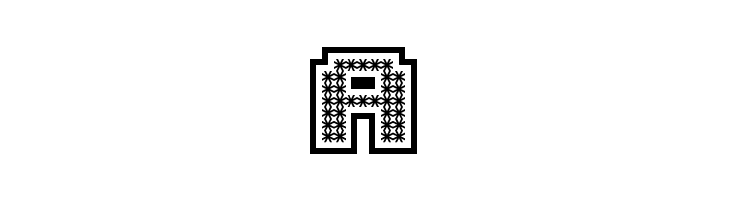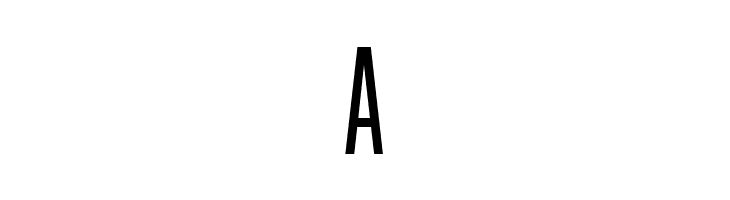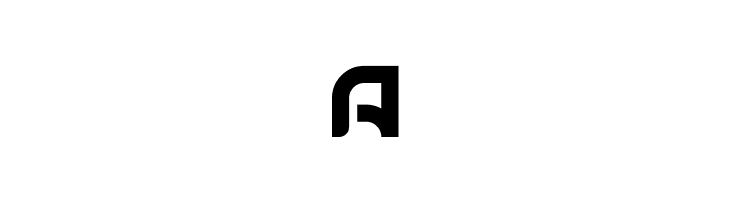
( Vladimir Nikolic - www.coroflot.com/vladimirnikolic )
A bold, geometric typeface with rounded edges and a modern, impactful style.
( Vladimir Nikolic - www.coroflot.com/vladimirnikolic )
A modern, geometric font with clean lines and a bold, futuristic aesthetic.
( Vladimir Nikolic - www.coroflot.com/vladimirnikolic )
A sleek, modern italic font with geometric precision and smooth curves.
( Vladimir Nikolic - www.coroflot.com/vladimirnikolic )
( Arief Pribadi )
A playful, bold handwritten font with rounded letterforms.
( Darrell Flood )
A bold, futuristic font with sharp angles and geometric shapes.
A futuristic, angular font with a bold, tech-inspired design.
A bold, high-contrast serif font with sharp, elegant serifs.
( Syntetype Studio )
A bold, geometric sans-serif font with a modern and clean design.
( Alit Design - Alit Suarnegara - www.alitdesign.net )
A lively and fluid script font with interconnected cursive strokes.
A lively, flowing script font with elegant, cursive letterforms.
( Heer Hugo - www.behance.net/neufsans4010ae )
A modern, geometric sans-serif font with rounded edges and uniform strokes.
A playful, bold, and rounded font with a hand-drawn style.
A bold, playful font with a shadow effect and hand-drawn style.
A bold, expressive script font with flowing, interconnected strokes.
A bold, expressive script font with dynamic strokes and elegant flourishes.
( Daymarius - www.creativefabrica.com/designer/Daymarius )
A pixelated, geometric font with a retro digital aesthetic.
A pixelated, retro-style font with a blocky, geometric design.
A bold, vintage serif font with sharp serifs and strong vertical lines.
( Darrell Flood )
A bold, geometric font with a futuristic and energetic style.
A playful and eclectic font with unique, decorative characters.
( Vladimir Nikolic - www.coroflot.com/vladimirnikolic )
A modern, bold italic font with a dynamic and energetic style.
( Vladimir Nikolic - www.coroflot.com/vladimirnikolic )
A bold, modern font with geometric shapes and clean lines.
A bold, elegant script font with flowing, cursive letters and ornate uppercase characters.
A dot matrix style font inspired by classic LED displays, offering a retro yet modern look.
( Wojtek Zolty )
A bold, geometric font with a futuristic and edgy design.
A bold, energetic handwritten font with thick strokes and dynamic letterforms.
( JK Typeface - hiltonbrasfoot.wixsite.com/jktypeface )
A bold, geometric font with a futuristic and modern style.